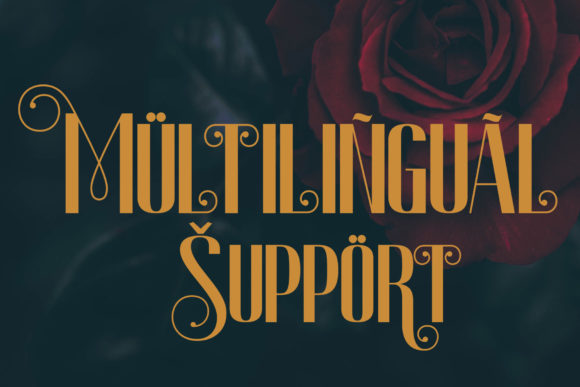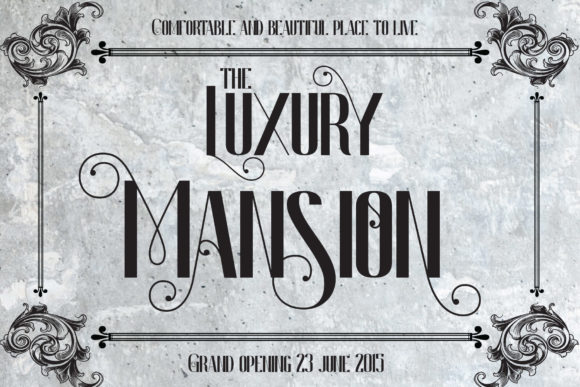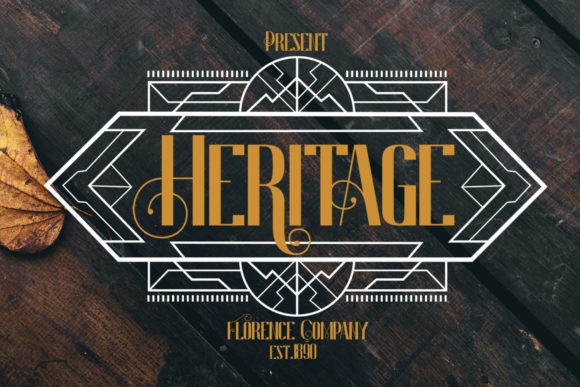
Introduction to Marsvolta Font
Remember that moment when you’re brainstorming ideas for a creative project, and you finally stumble upon the perfect font to bring your concept to life? For designers, finding the right font can be a game-changer. It’s like discovering a hidden gem that elevates your design from ordinary to extraordinary.
One such gem is the Marsvolta Font, a stunning retro and whimsical display font that’s sure to captivate your audience. With its unique blend of vintage charm and modern flair, this font is an absolute must-have for any designer’s library. Whether you’re working on a high-quality design project or simply need a reliable design resource, the Marsvolta Font is an incredible asset that’s sure to deliver.
Marsvolta Font
- Designed with a bold and futuristic aesthetic, perfect for sci-fi and space-themed projects.
Honest Review: Marsvolta Font
As a designer, I’m always on the lookout for high-quality design resources that can elevate my creative projects. Recently, I stumbled upon the Marsvolta Font, and I’m excited to share my honest review with you.
- ✨ High-quality typography: The Marsvolta Font boasts crisp and clean lines, making it perfect for any design project.
- ✨ Versatile design: The font is suitable for a wide range of creative projects, from logos and branding to digital products and publications.
- ⚠️ Limited character set: The Marsvolta Font has a limited character set, which might be a drawback for designers who need a wide range of characters for their project.
Overall, I’m impressed with the Marsvolta Font, and I think it’s a great addition to any designer’s toolkit. While it has some limitations, its high-quality typography and versatility make it a valuable resource for creative projects.
Marsvolta Font: A High-Quality Design Resource
Tips for Getting the Most Out of Marsvolta Font
To get the most out of Marsvolta Font, use it with a transparent background to create a clean and modern design.
Experiment with different font sizes and styles to find the perfect combination for your project.
Common Use Cases for Marsvolta Font
Marsvolta Font is perfect for any creative project that requires a high-quality, modern font. Some common use cases include:
Logo design